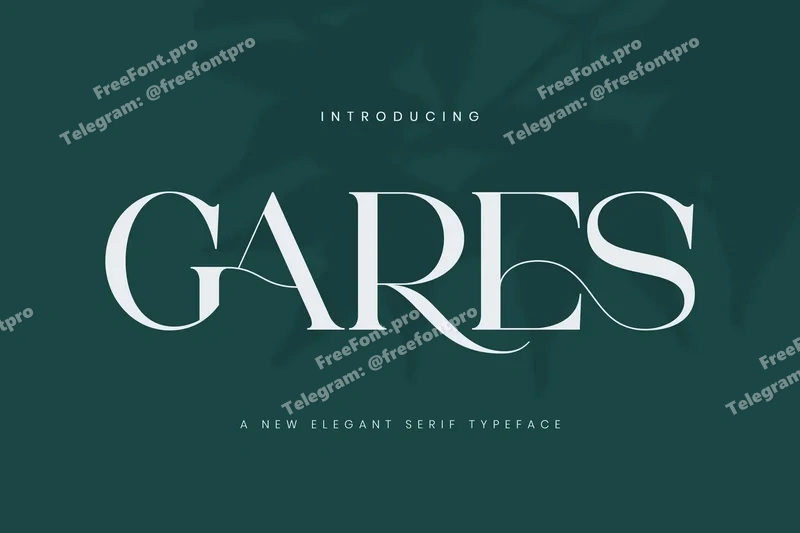
Gares Elegant Serif Font
Gares Stylish Ligature Typeface, inspired by the famous minimalist logo perfect for the purposes of designing templates, brochures, videos, advertising branding, logos and more.